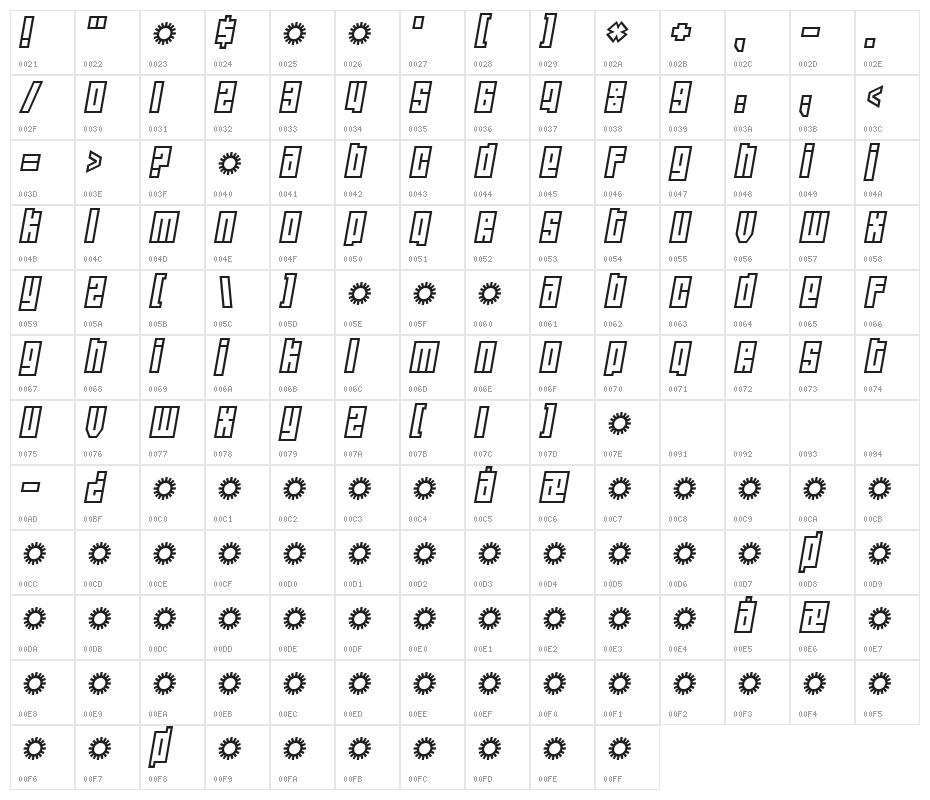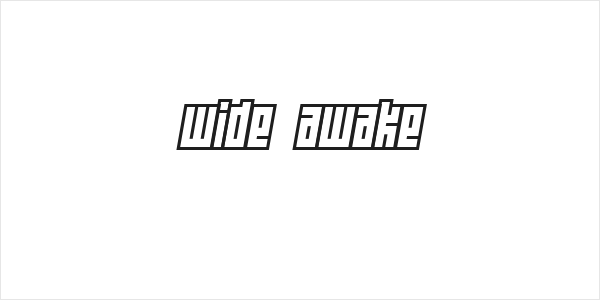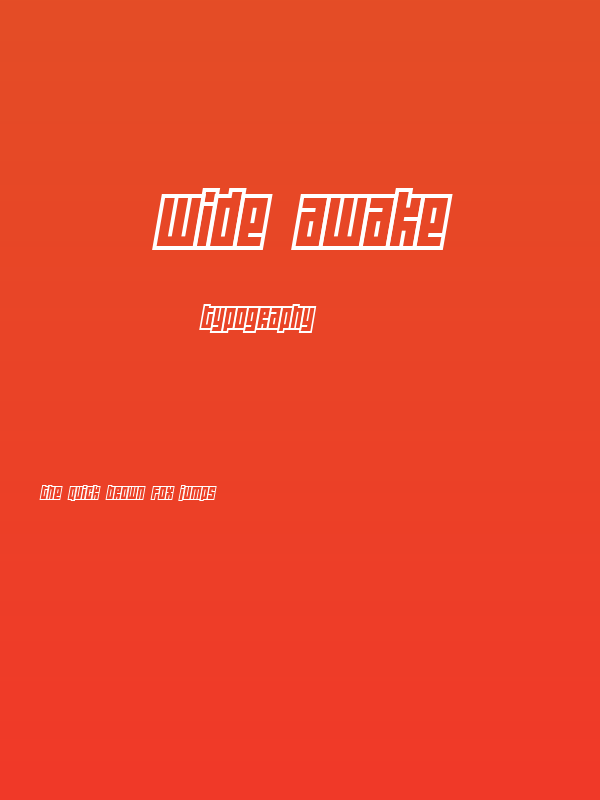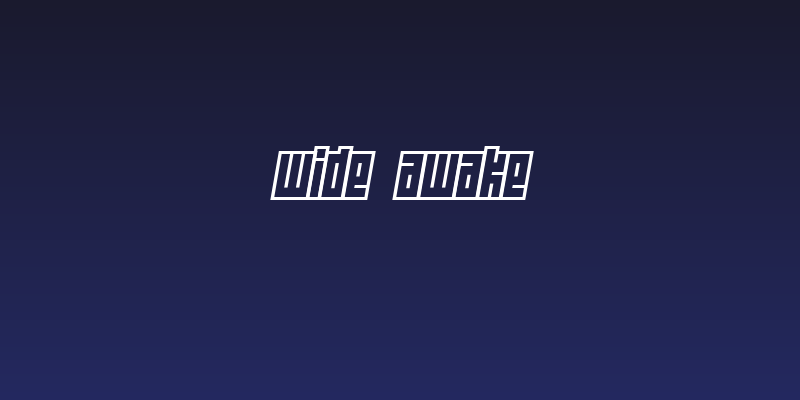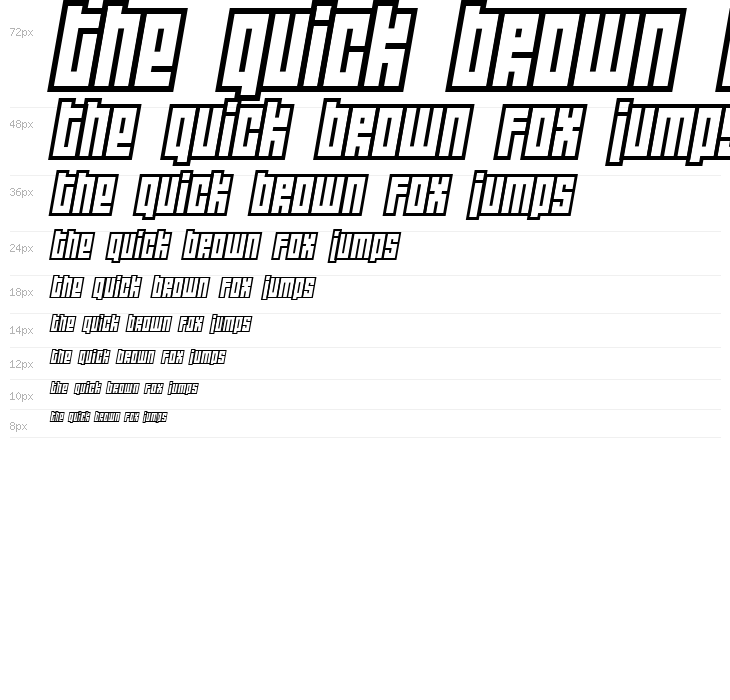
Wide awake Font
Wide awake Description
This font features a bold, geometric design with a distinct blocky appearance. The characters are uniformly wide, creating a strong visual impact. The angular edges and consistent stroke width give it a modern, futuristic feel. The uppercase and lowercase letters maintain a cohesive style, while the numerals and special characters complement the overall aesthetic. The font's structure is clean and precise, making it suitable for attention-grabbing designs. Its unique style is ideal for projects that require a bold statement.
| Proposed Projects | Ideal for posters, headlines, branding, and any design that requires a strong, futuristic look. |